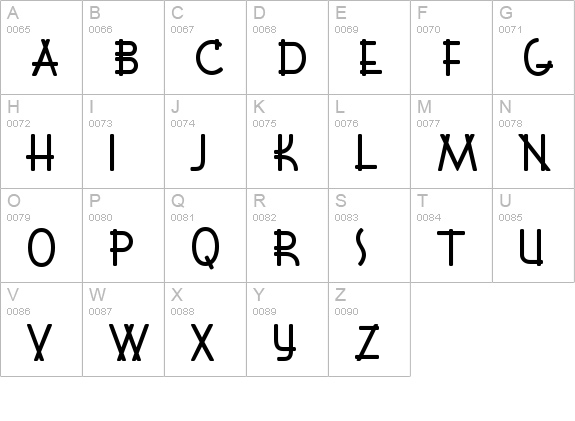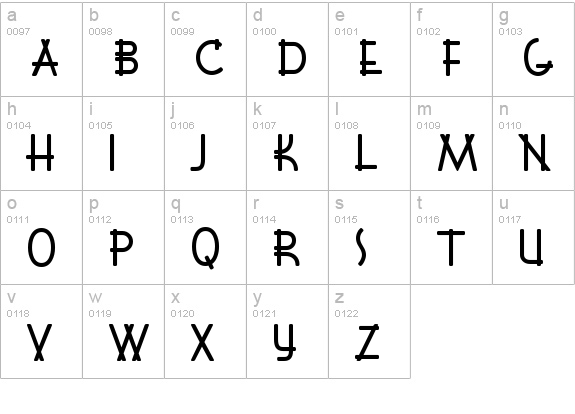
Font Shui Font Details
Introducing Font Shui, a versatile and elegant font that embodies the perfect balance of modernity and sophistication. With its sleek lines and graceful curves, Font Shui exudes a sense of harmony and tranquility, making it ideal for a wide range of design projects. This exquisite font is not only visually appealing but also highly functional, making it a versatile choice for both digital and print applications. Whether you're designing a logo, crafting a website, or creating a poster, Font Shui will effortlessly elevate your work to new heights. Best of all, Font Shui is available for free download at FontsMarket.com, allowing you to access this stunning font with ease. Don't miss out on the opportunity to add Font Shui to your font collection and infuse your projects with a touch of timeless elegance.